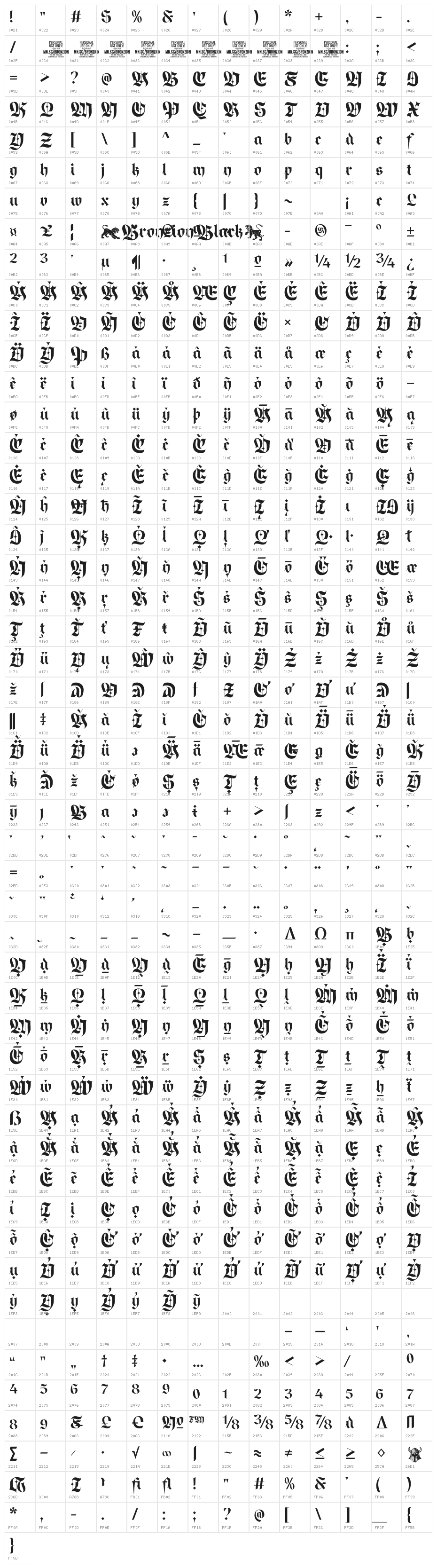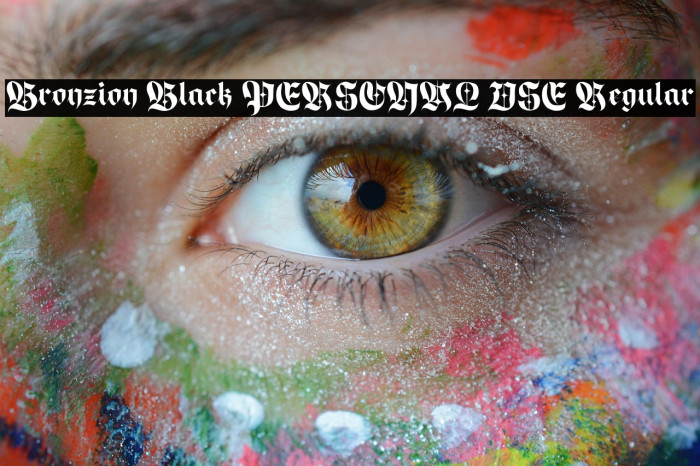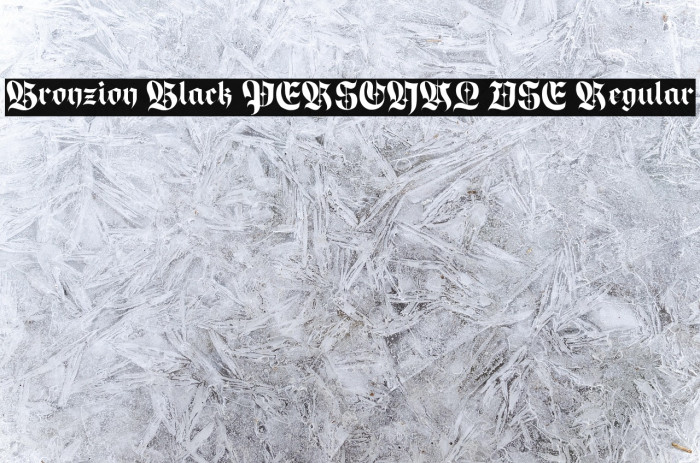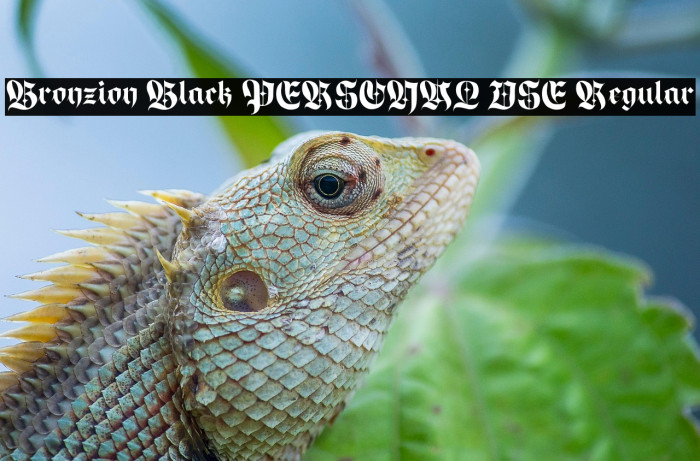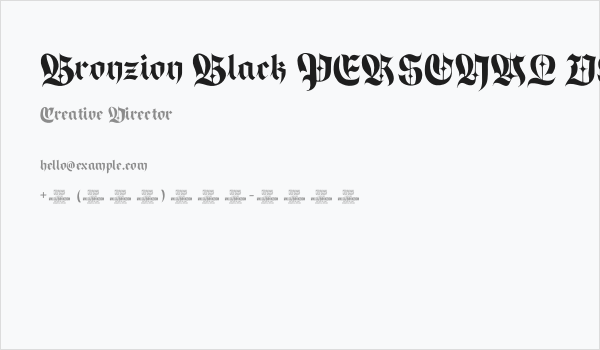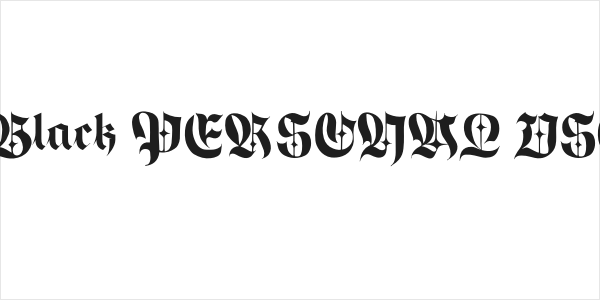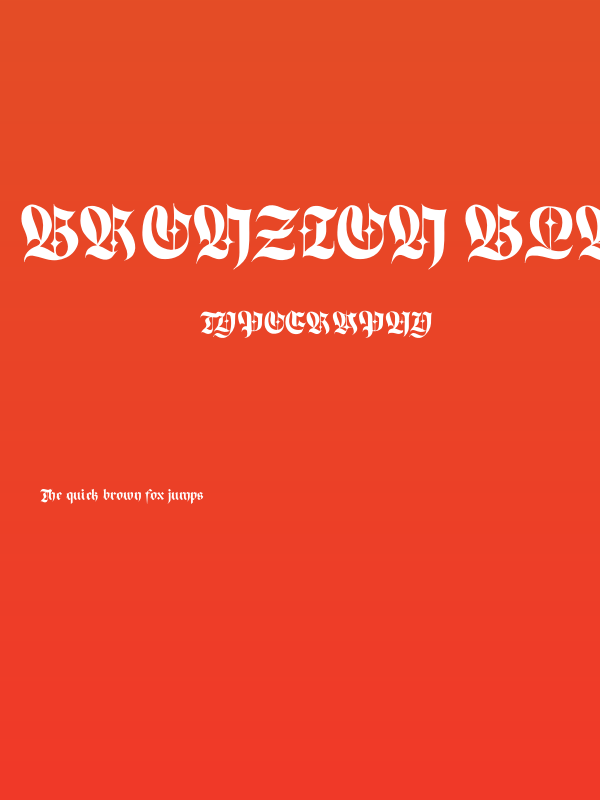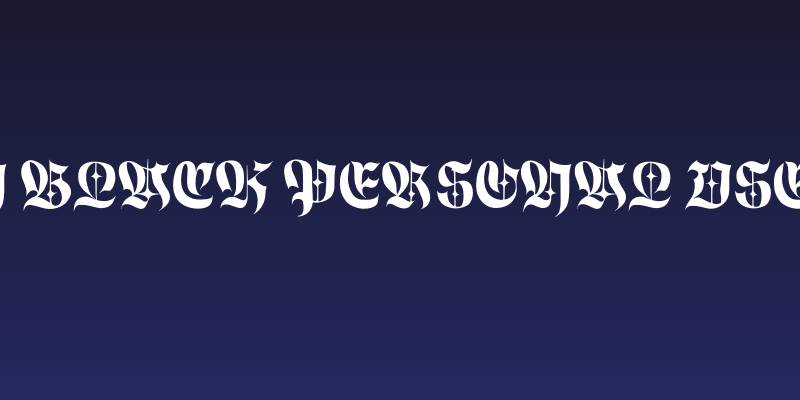
Bronzion Black PERSONAL USE Regular Font
Bronzion Black PERSONAL USE Regular Description
This font features a bold and dramatic blackletter style, characterized by its sharp, angular lines and intricate detailing. The uppercase letters are ornate, with a gothic influence that is both striking and elegant. The lowercase letters maintain the same level of detail, offering a cohesive look across the alphabet. The numerals and special characters are designed with the same attention to detail, ensuring they match the overall aesthetic. This font is perfect for projects that require a historical or medieval feel, such as themed event invitations, posters, or branding for niche markets.
| Overall Style | Gothic, Decorative |
| Proposed Projects | Ideal for medieval-themed events, gothic posters, or niche branding. |